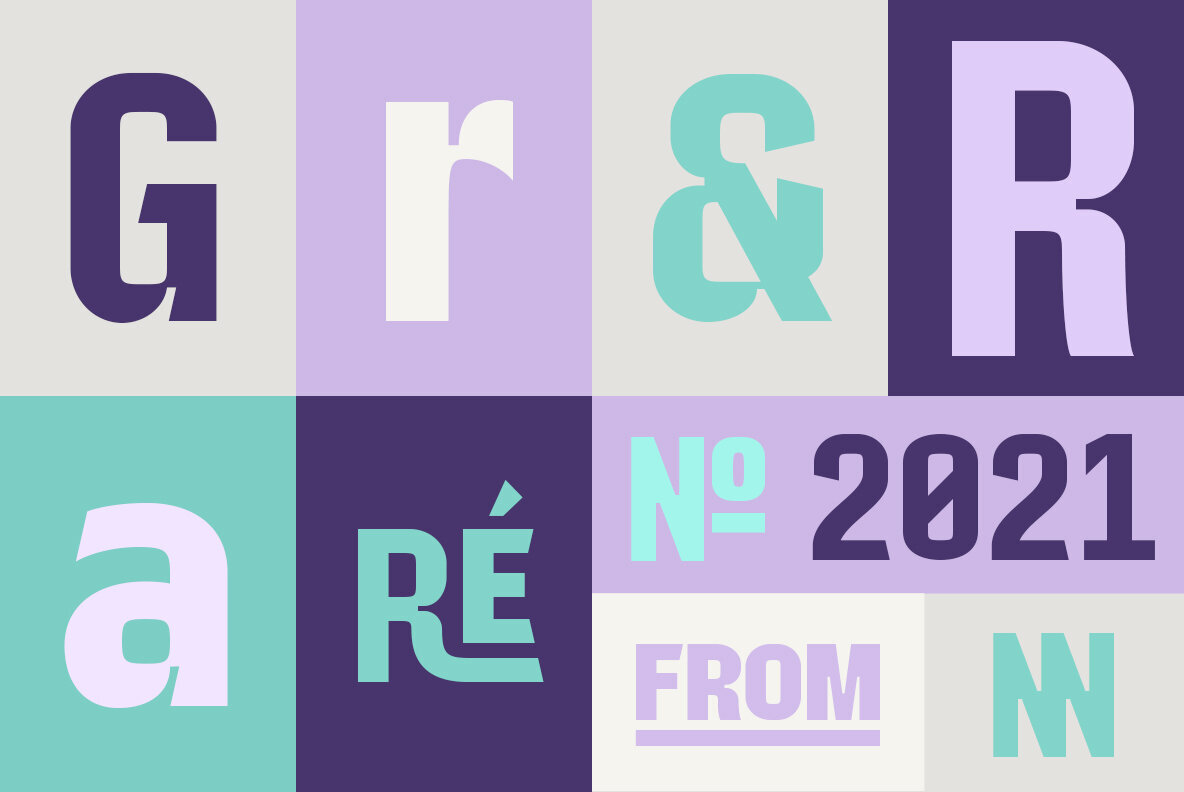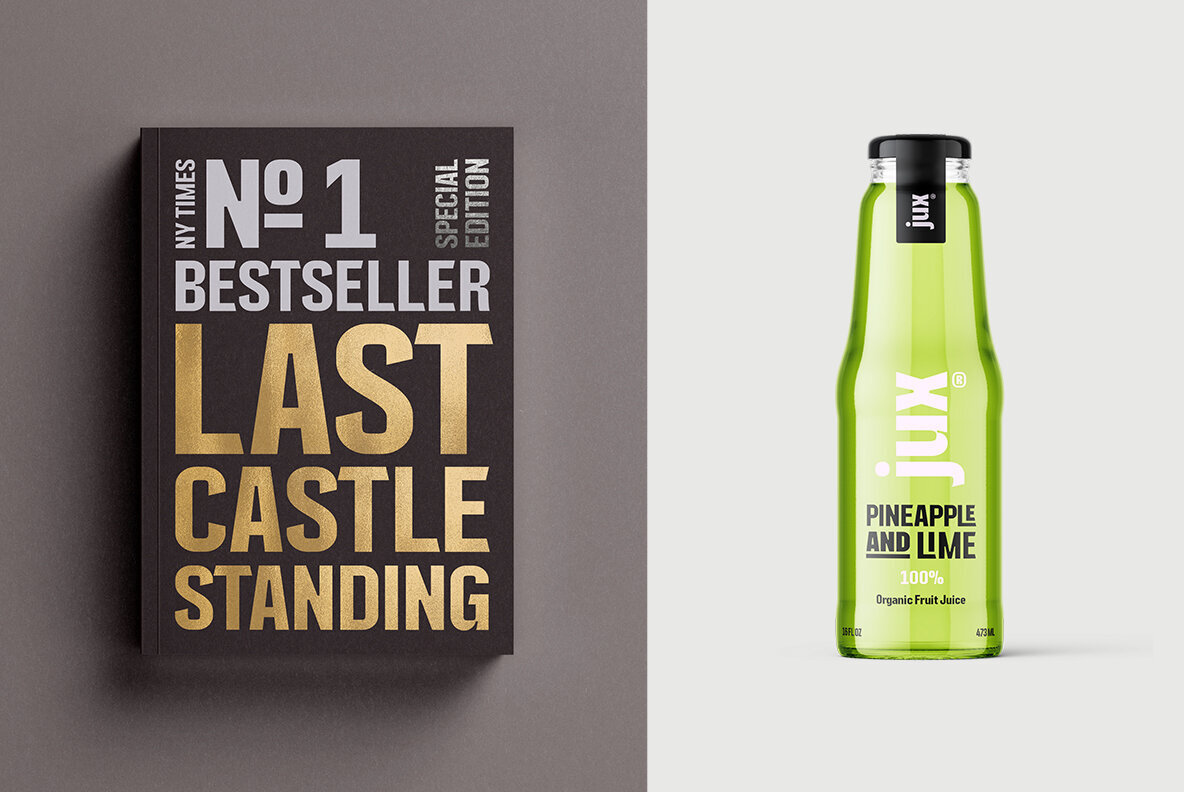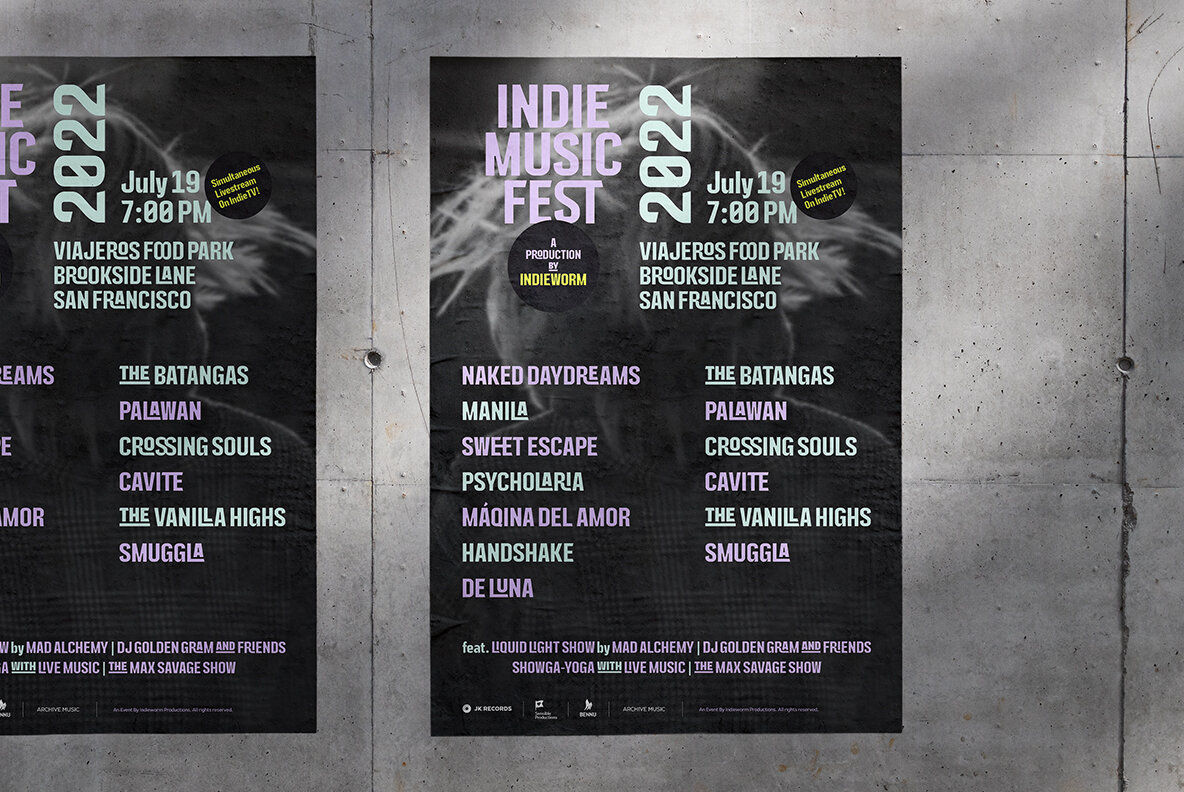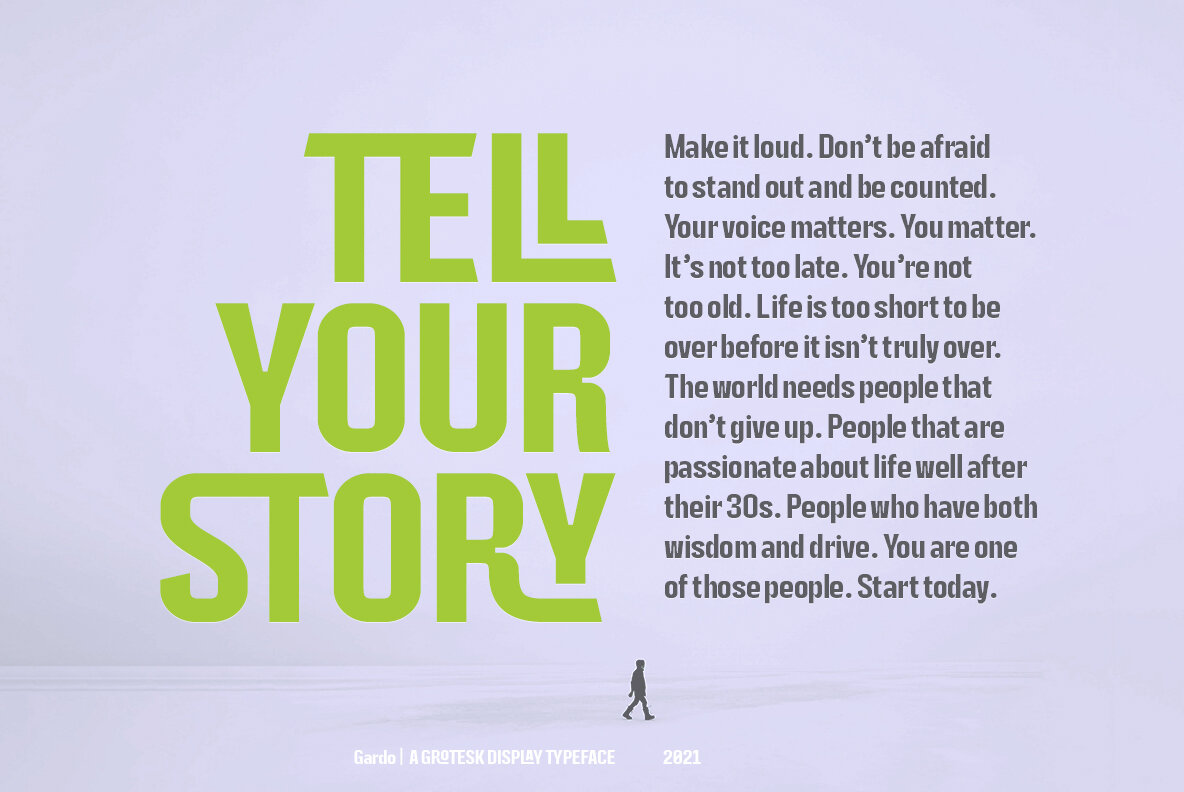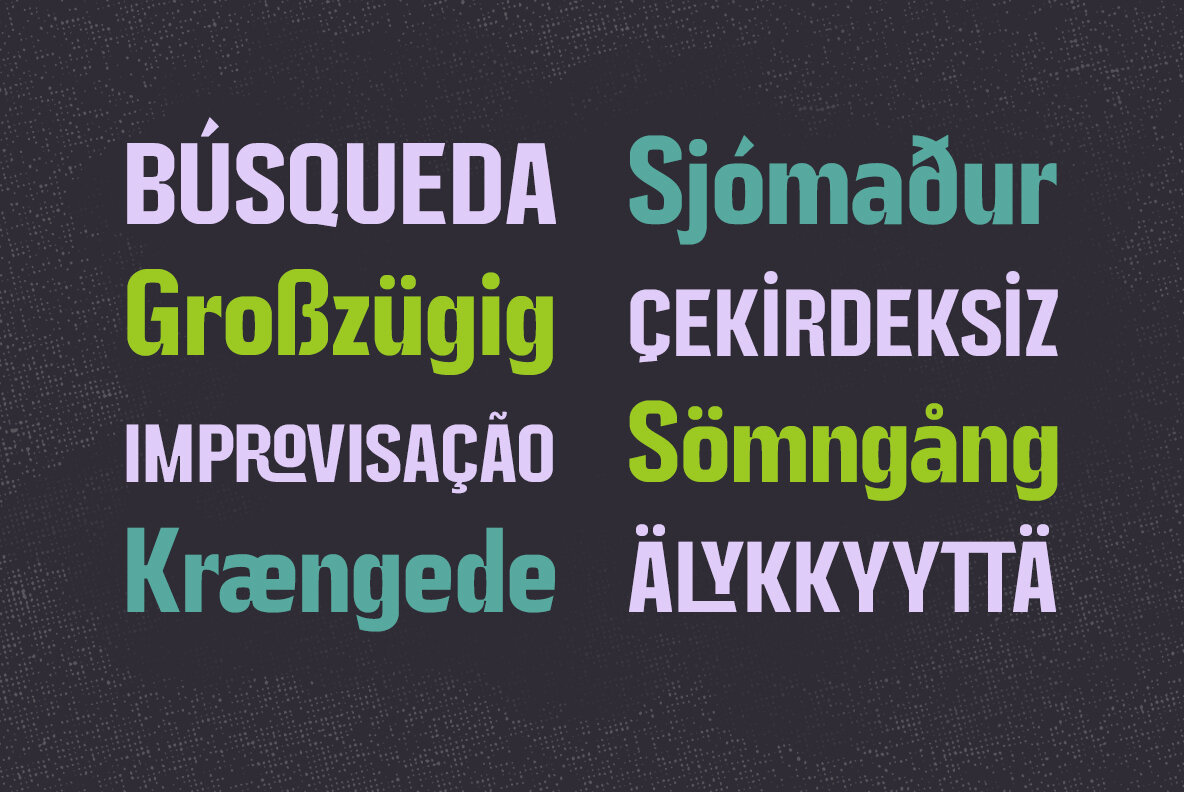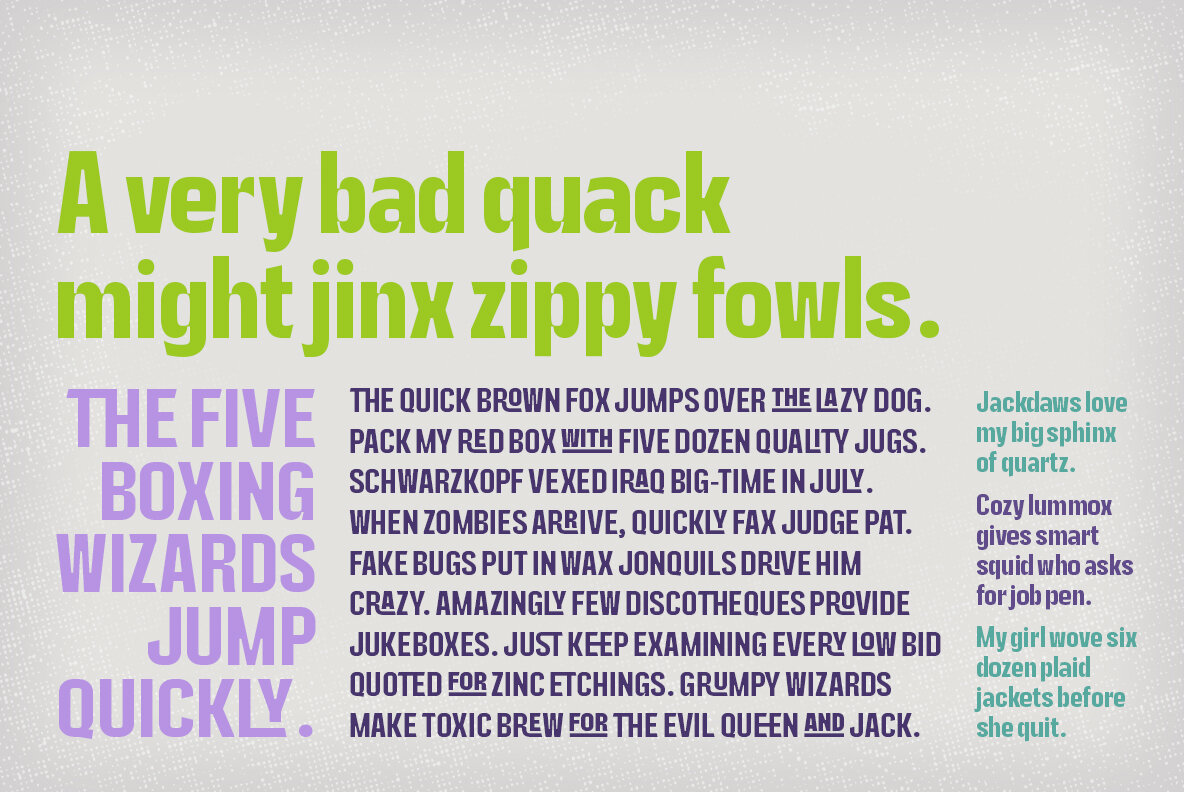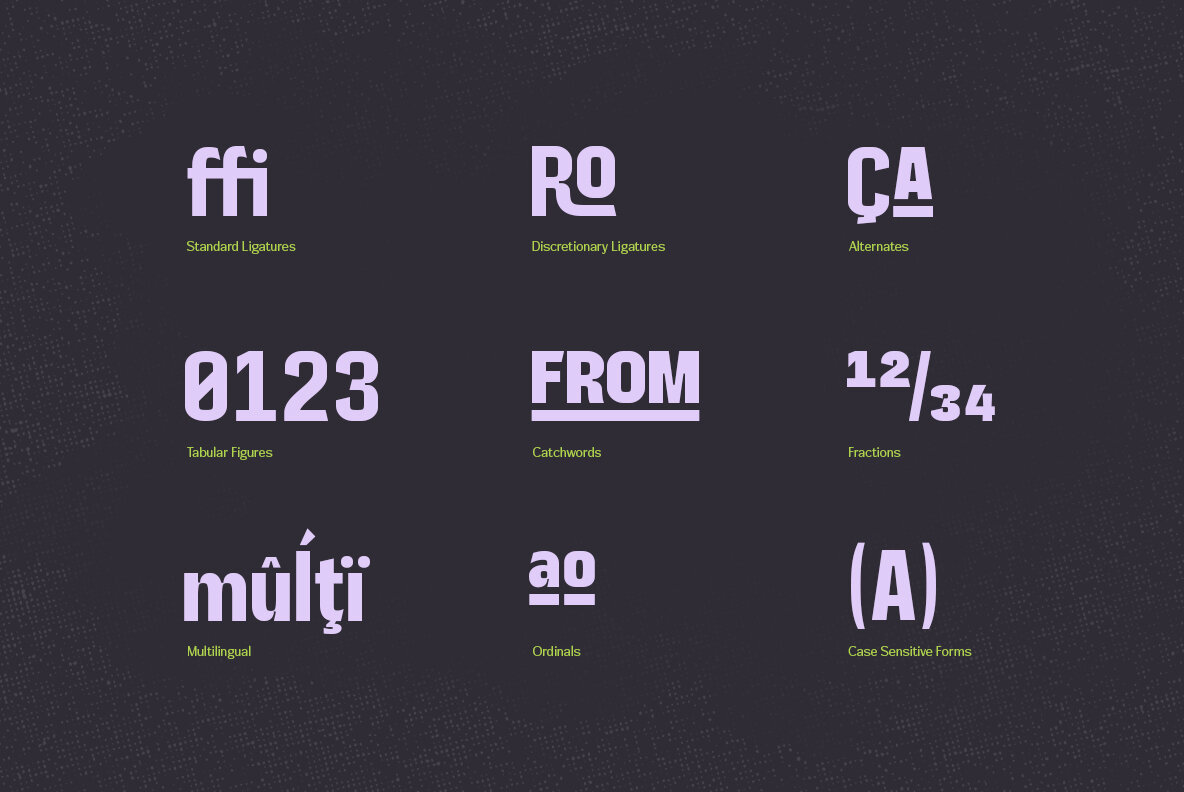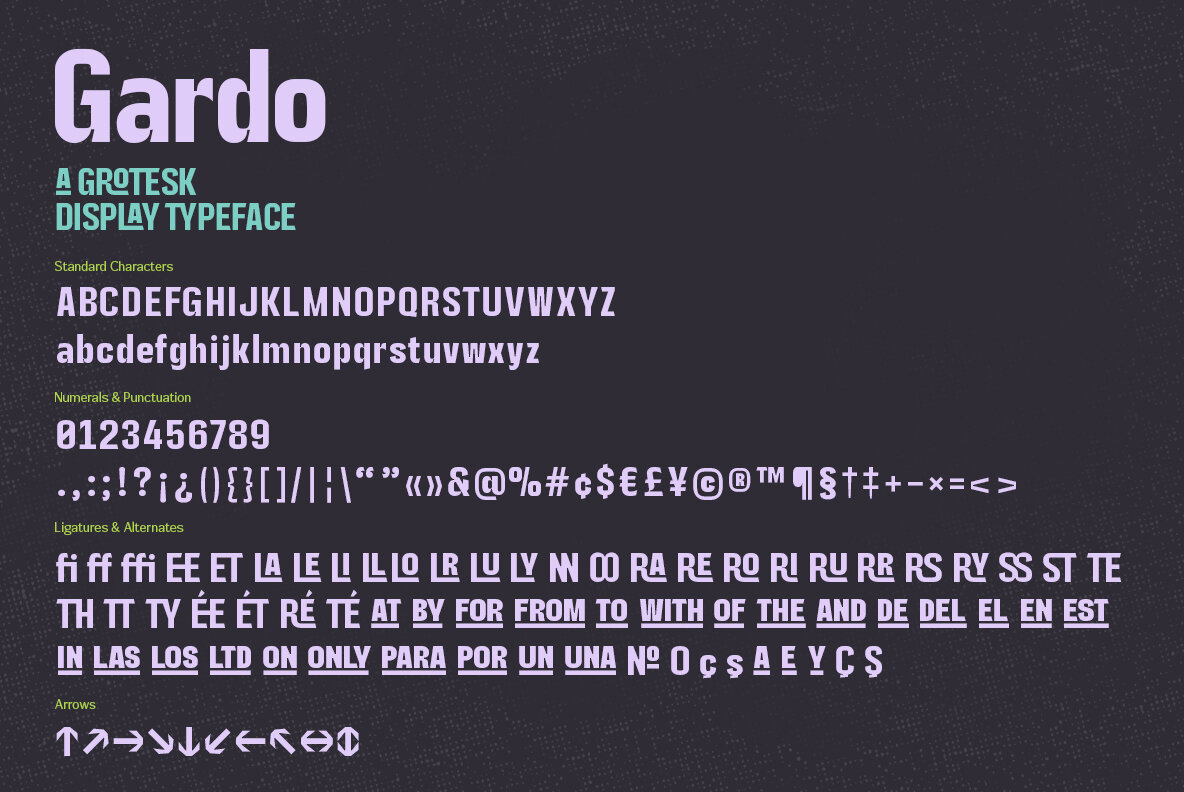
Gardo Grotesk Font
Gardo Grotesk Regular
Gardo Grotesk is a bold condensed display typeface designed to make a strong impact. Armed with eye catching ligatures and catchwords, combined with its striking visual features, Gardo Grotesk grabs the attention of the reader effortlessly.